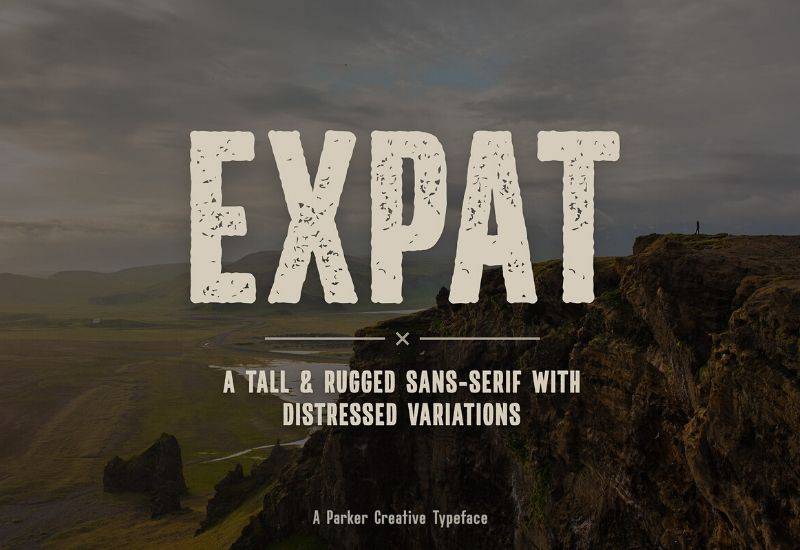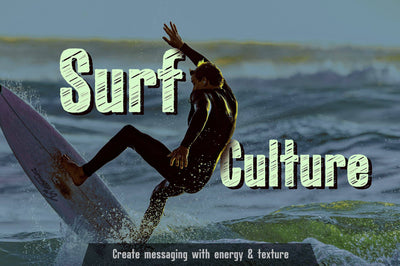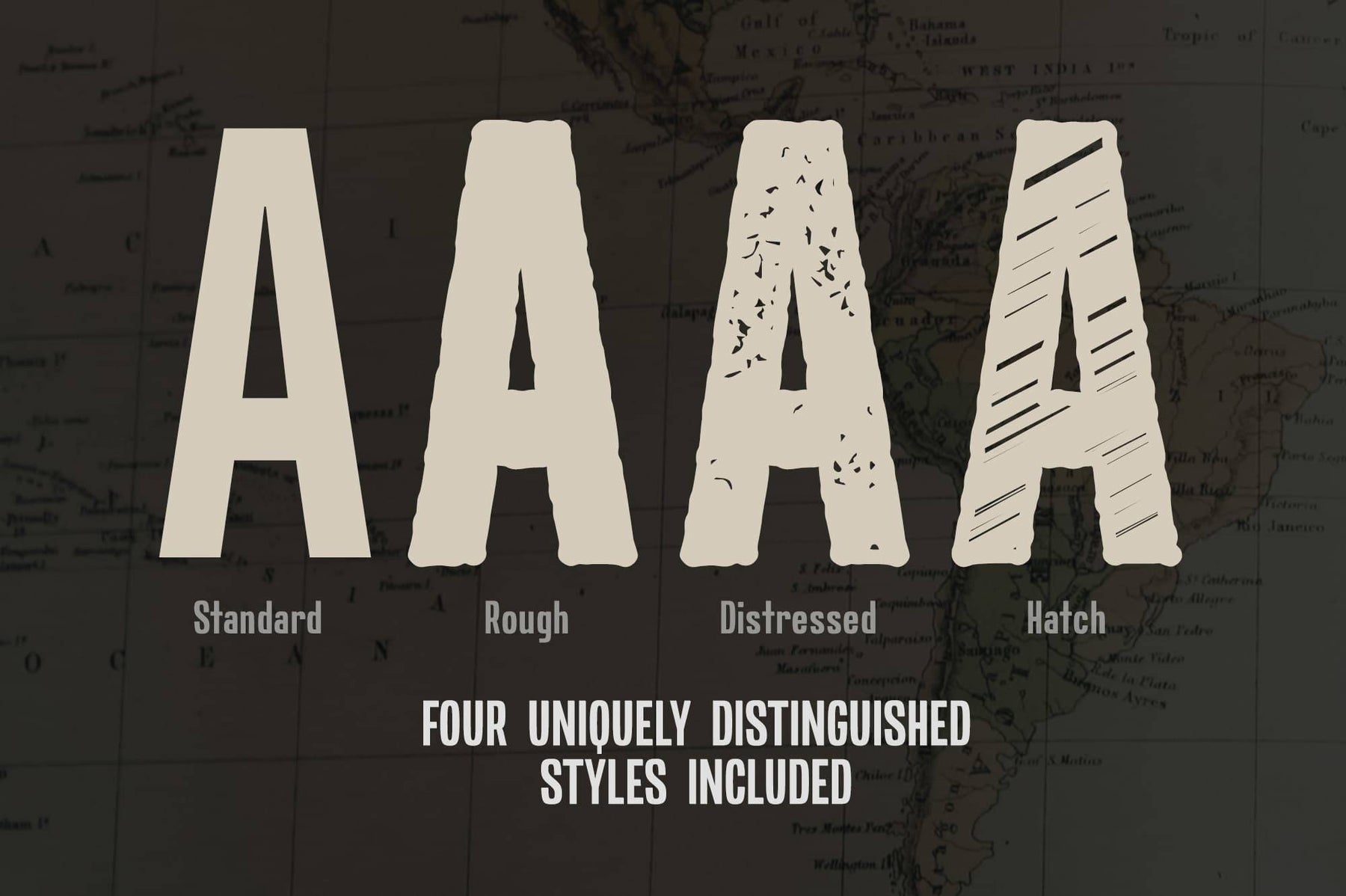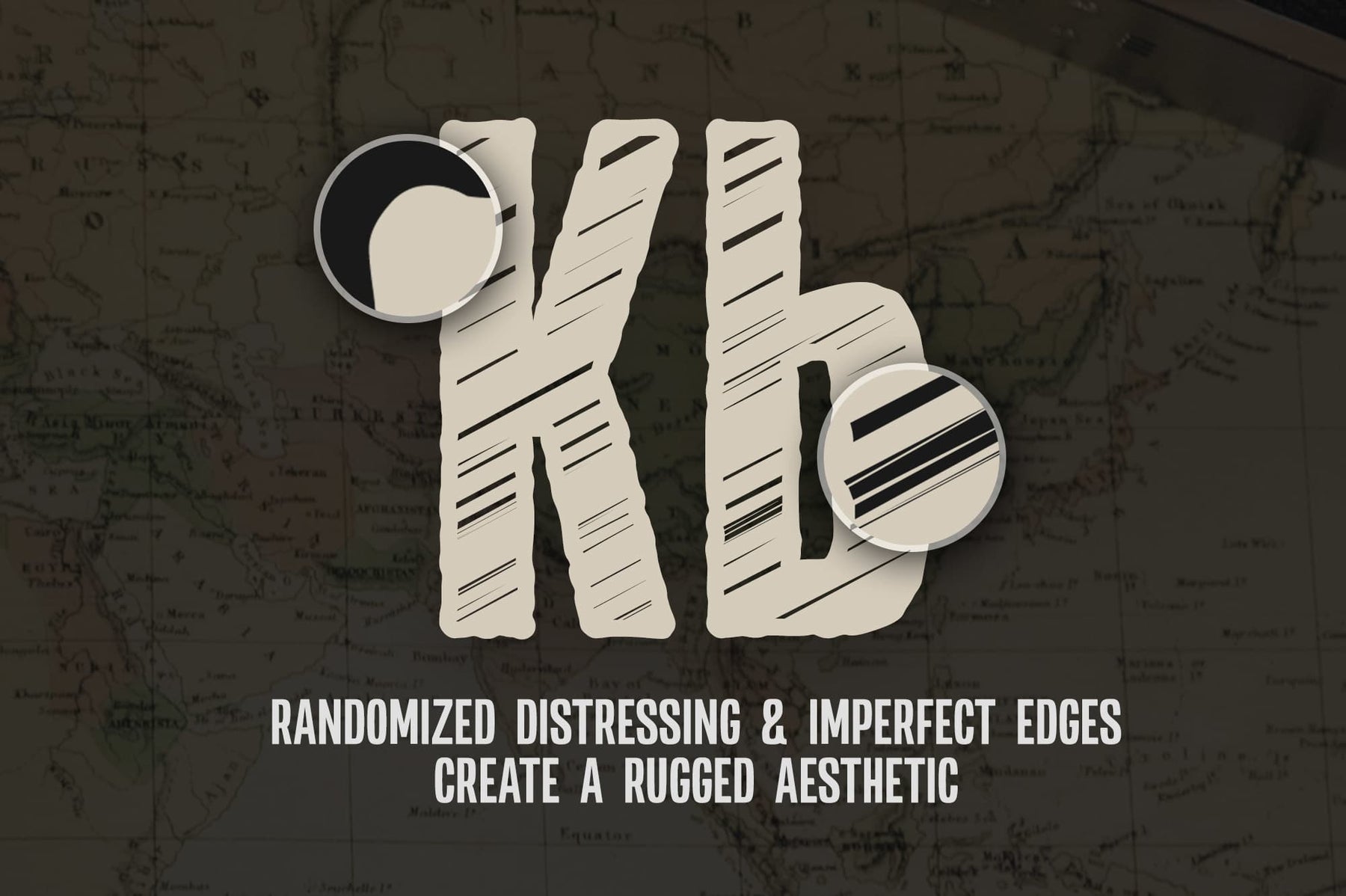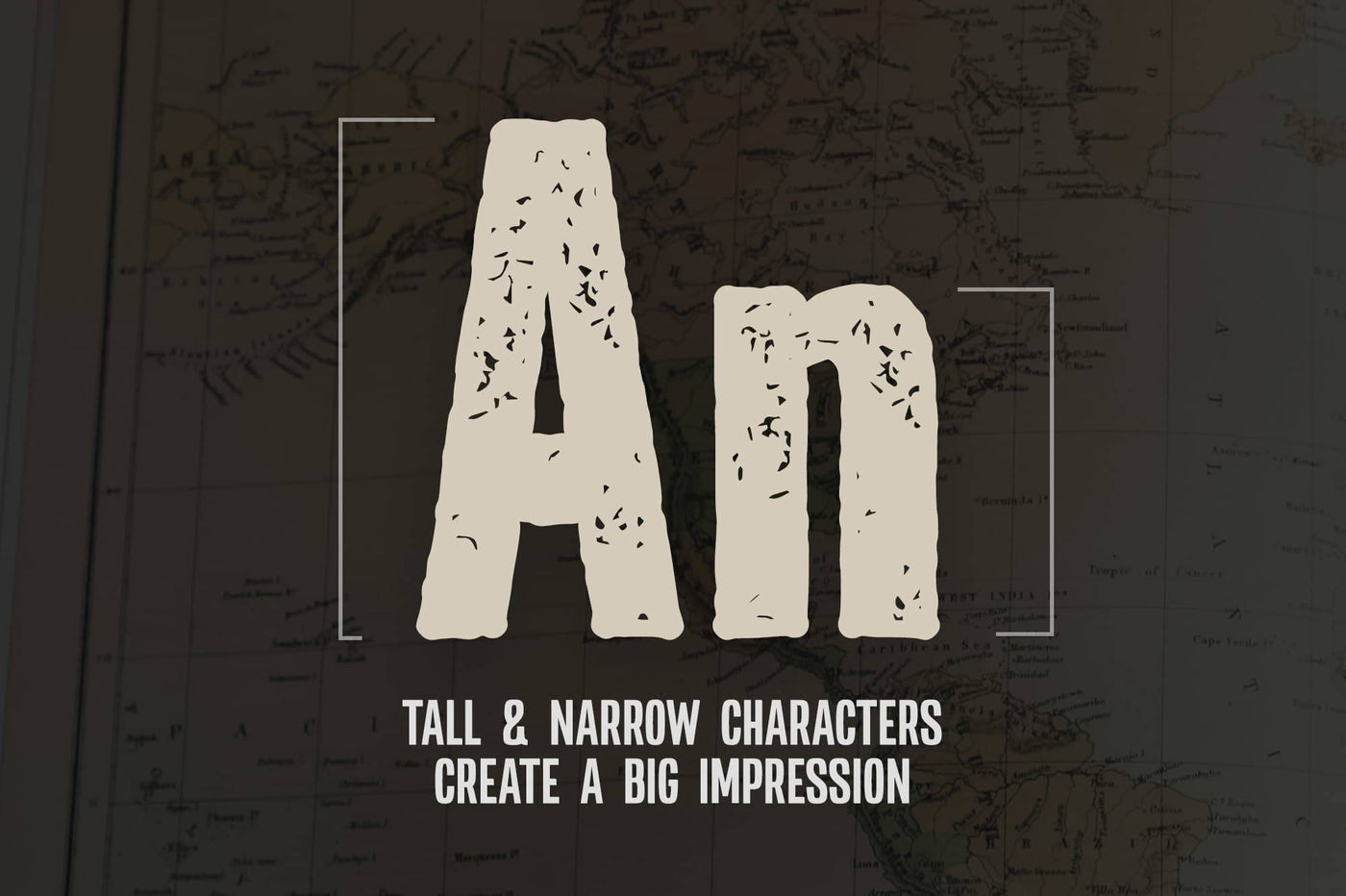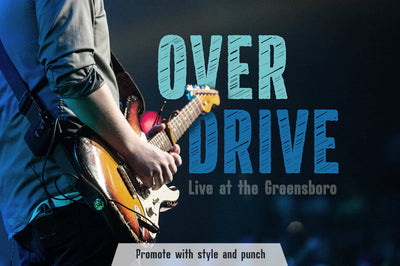
Expat was designed to be used to make exciting promotional material for most industries.
With its rugged and thick narrow body, Expat appears heavy to the eye and draws the eye, which is great for big headlines.
Some examples of great uses of the typeface include high energy content seen in sports and apparel advertising, rustic and trendy restaurant materials, even event promotions for concerts or holidays like Independence Day and Oktoberfest.
Expat is naturally vintage, allowing you to capture a sense of authenticity in your work. With Expat's multiple style options, there is no limit to what you can make with it!
- Expat Hand-Made typeface in 4 different styles such as Standard, Rough, Distressed, and Hatch
- The bundle also includes unique punctuations and symbols
- These fonts are crafted with perfection making them suitable for anything, from small web artwork to large print materials, advertising and more!